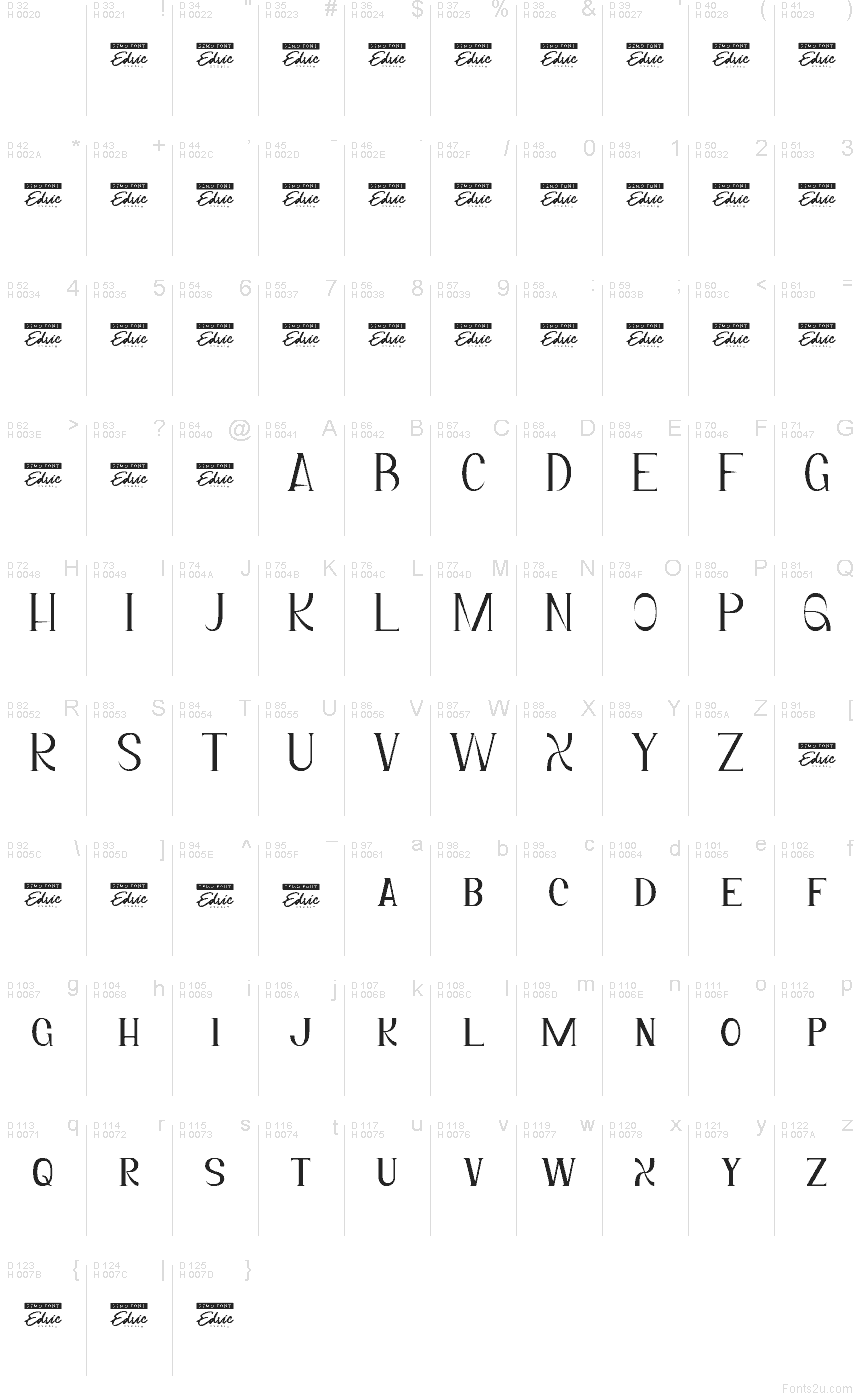
Prince Outfit Demo
Prince Outfit font by Edric Studio is a free serif typeface that feels like it just stepped out of a royal wardrobe. Tall, slender letterforms with flowing curves and elegant flares give it a polished, couture presence, while the tight rhythm of the strokes keeps it crisp and readable. The subtle, sculpted shapes of Prince Outfit add a sense of drama without feeling fussy, making every word look intentionally styled.
Using Prince Outfit, you can bring a refined, fashion-forward edge to logos, perfume or beauty packaging, magazine covers, event invitations, posters, and social media graphics. This free font shines when used large, where its graceful details and sweeping forms can really breathe. Pair it with a simple geometric sans in smaller text to balance its luxe personality and let the serif lettering act as the hero of your layout.